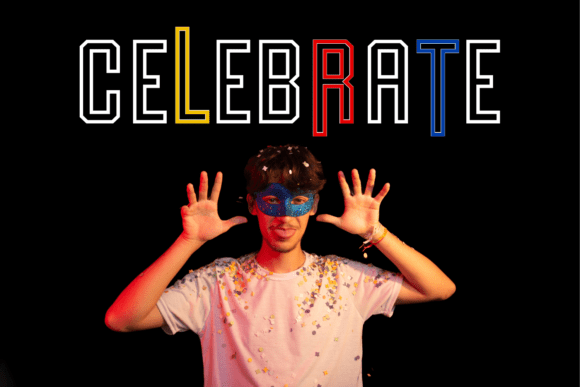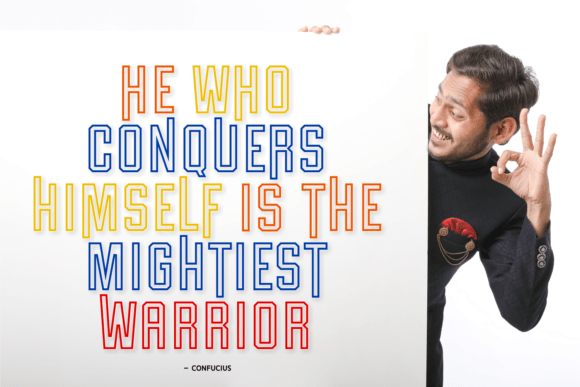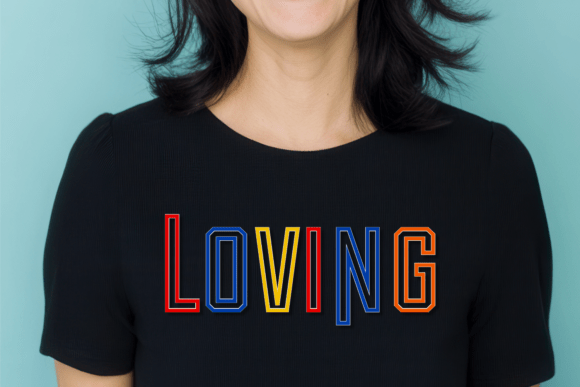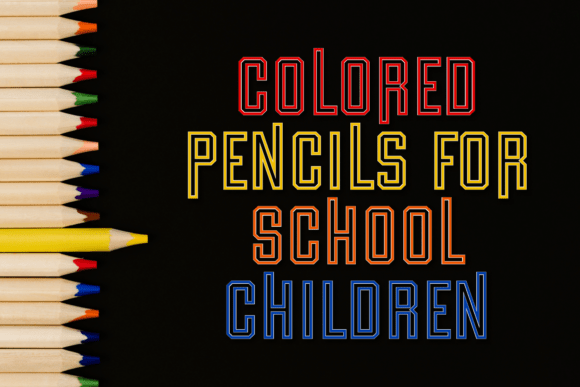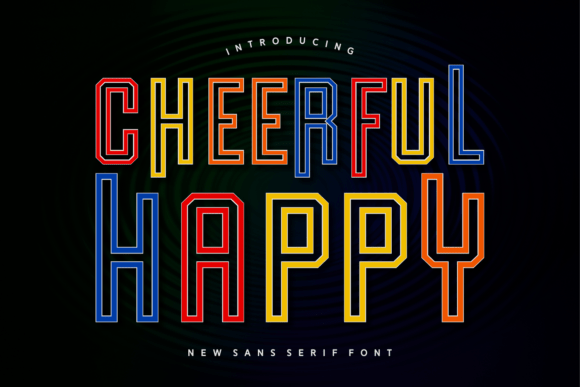
Introducing Cheerful Happy Font: Elevate Your Design with a Vivacious and Vibrant Sans Serif
In the world of design, fonts play a crucial role in conveying the tone and personality of a brand or creative project. If you’re looking for a font that exudes happiness, energy, and playfulness, look no further than Cheerful Happy Sans Serif. This modern display font is carefully crafted to suit various applications, from apparels and book covers to brand identities and greeting cards.
What Makes Cheerful Happy Sans Serif Stand Out?
Cheerful Happy Sans Serif is a unique and captivating font that effortlessly amalgamates modern display styles and authentic accents. Its round and bouncy letters are designed to add a smooth and clean aesthetic to your designs, making it perfect for a wide range of projects. The font features a versatile outline and thin lines that are bound to make your logo, magazine layout, or product packaging design stand out.
The uses of Cheerful Happy Sans Serif are endless. Whether you’re a designer, crafters, or DIY enthusiast, this font can help you create engaging and visually appealing designs. Here are some ideas to get you started:
• Apparel Design: Add a sporty dynamic to your t-shirt, hoodie, or jersey designs with Cheerful Happy Sans Serif.
• Book Covers: Create eye-catching book covers that grab attention with this vibrant font.
• Brand Identities: Establish a strong brand presence with Cheerful Happy Sans Serif, perfect for logos, business cards, and letterheads.
• Greeting Cards: Design beautiful and uplifting greeting cards for special occasions.
• Website Content: Highlight your website content, blog posts, and Instagram captions with this cheerful font.
Readability and Versatility
One of the standout features of Cheerful Happy Sans Serif is its incredible readability. The font’s regular structure and robust character make it easy to read, whether it’s on a boxing club banner or a varsity jersey. This versatility makes it perfect for various design applications, from digital to print.
Perfect for Sports and College-Related Designs
If you’re designing for sports teams, colleges, or universities, Cheerful Happy Sans Serif is an excellent choice. The font’s sporty dynamic and energetic vibe make it perfect for:
• Team Logos: Create bold and eye-catching logos for sports teams.
• Banner Designs: Design vibrant banners for college events, sports games, or tournaments.
• Jersey Designs: Add a professional touch to your varsity jersey designs.
Here are some key features and benefits of Cheerful Happy Sans Serif:
• Unique and Captivating Design: Stand out from the crowd with this distinctive font.
• Highly Versatile: Suitable for various design applications, from digital to print.
• Incredible Readability: Easy to read, even at small font sizes.
• Modern Display Style: Perfect for modern designs that require a fresh and energetic look.
Cheerful Happy Sans Serif is a vibrant and captivating font that’s perfect for designers, crafters, and DIY enthusiasts. Its unique design, versatility, and incredible readability make it an excellent choice for various design applications. Whether you’re designing for sports teams, colleges, or personal projects, this font is sure to elevate your design and engage your audience.